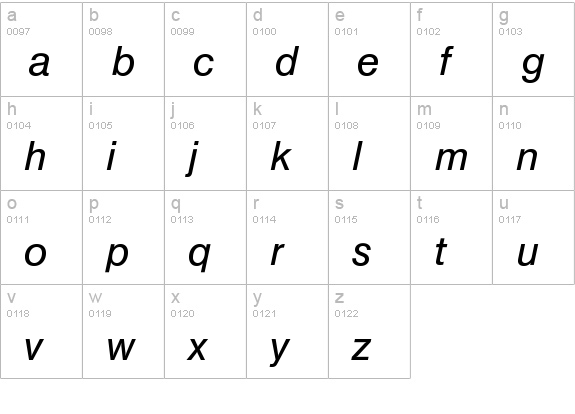
Olympia-MediumIta is a stylish and versatile font that exudes elegance and sophistication. With its sleek and modern design, this typeface is perfect for a wide range of design projects, from branding to web design to print materials. The flowing curves and unique letterforms of Olympia-MediumIta make it a stand-out choice for any creative project. Best of all, Olympia-MediumIta is available for free download at FontsMarket.com. This means you can easily access this premium font without having to worry about any licensing fees or restrictions. Whether you're a professional designer looking to add a new font to your toolkit or a hobbyist looking to elevate your projects, Olympia-MediumIta is the perfect choice. Download it today and see how it can enhance your designs!